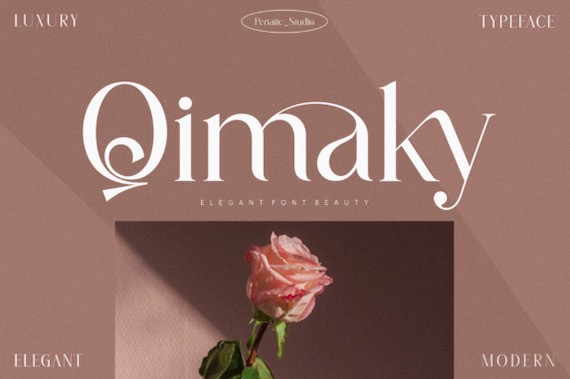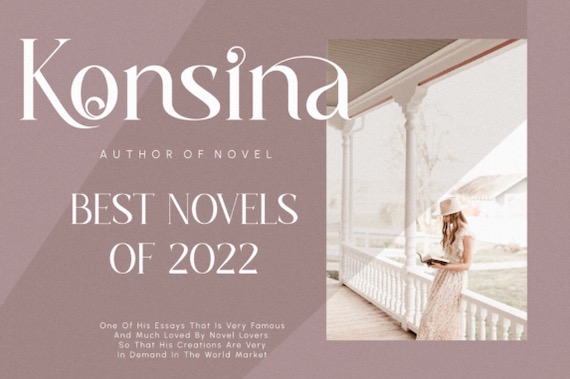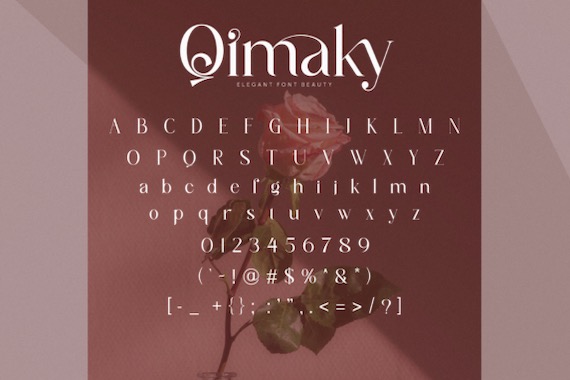
Qimaky is an elegant and delicate serif font that was designed and shared by Penatic Studio. This modern font is PUA encoded which means you can access all of the glyphs and swashes with ease.
Qimaky Serif Font
Publisher: Penatic Studio